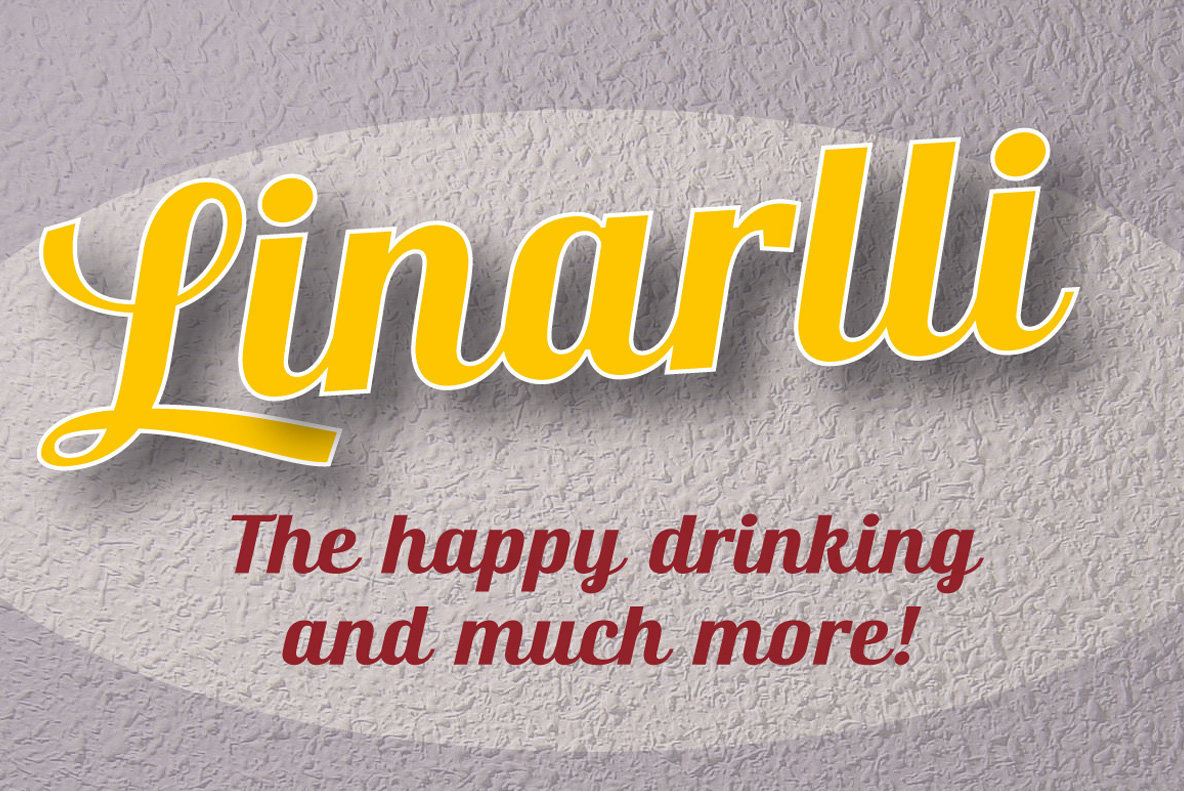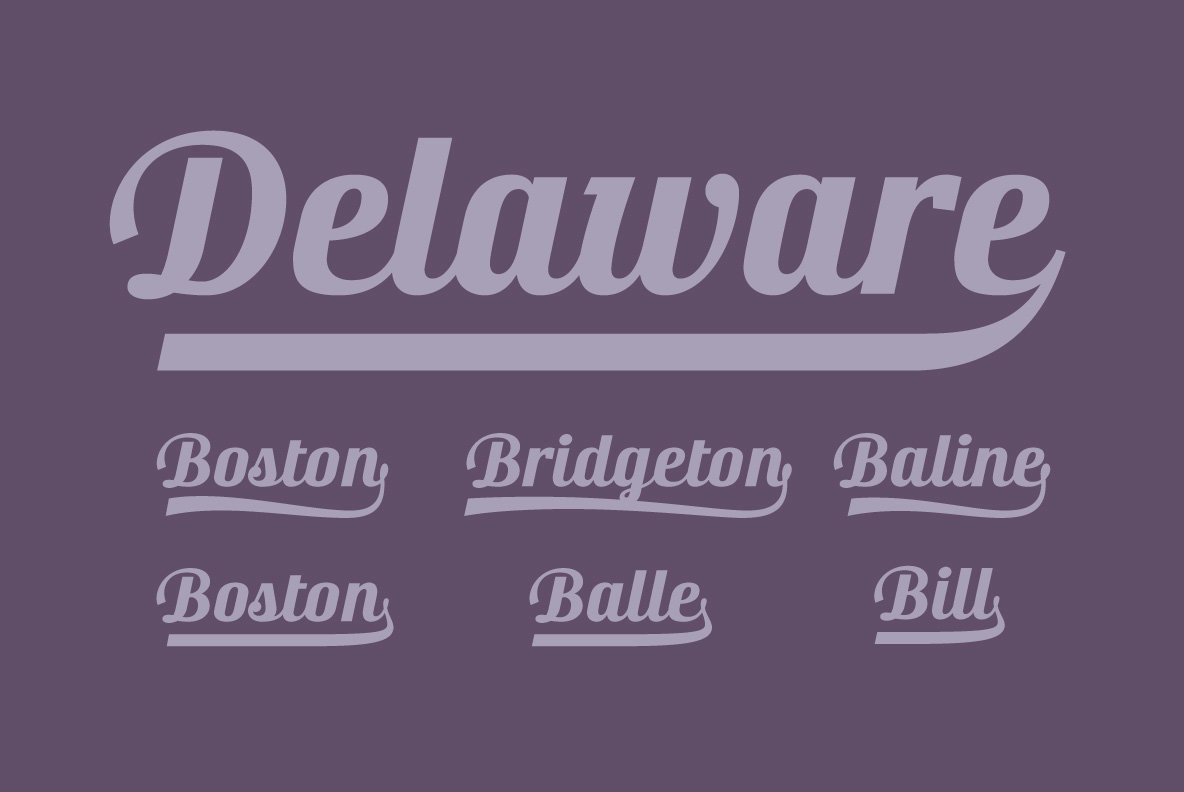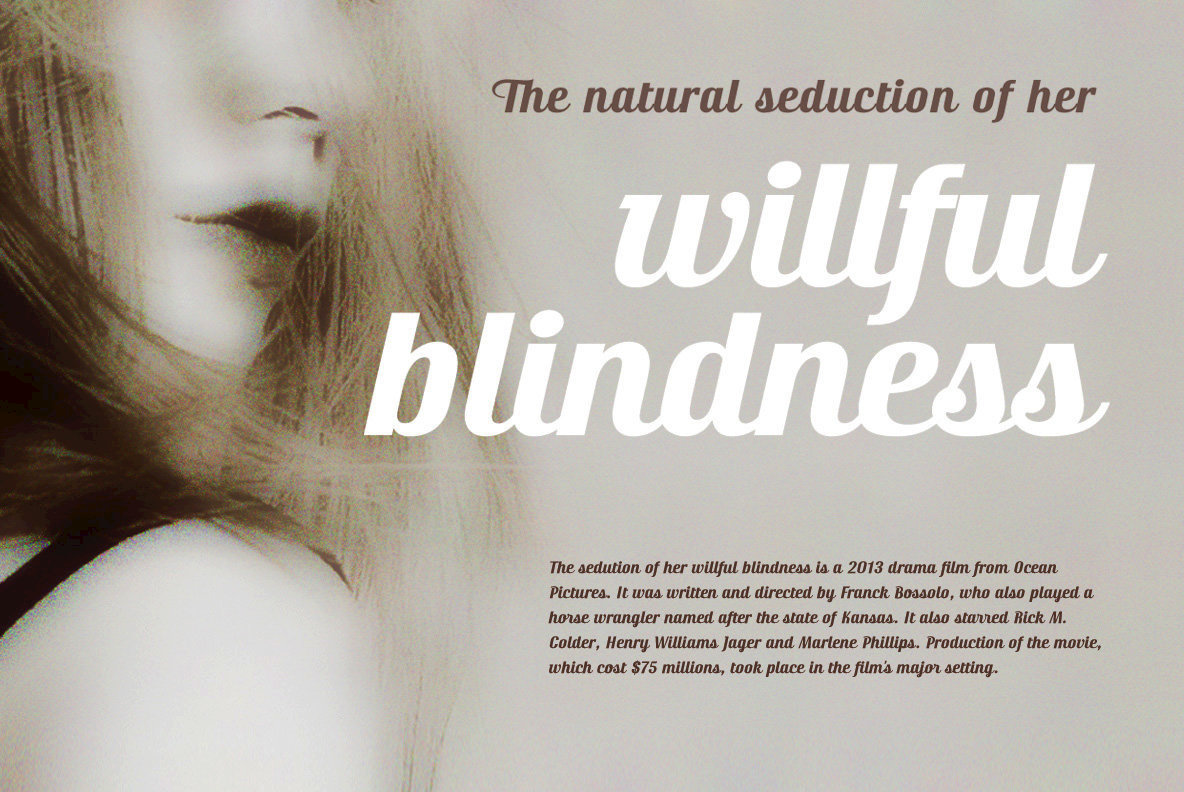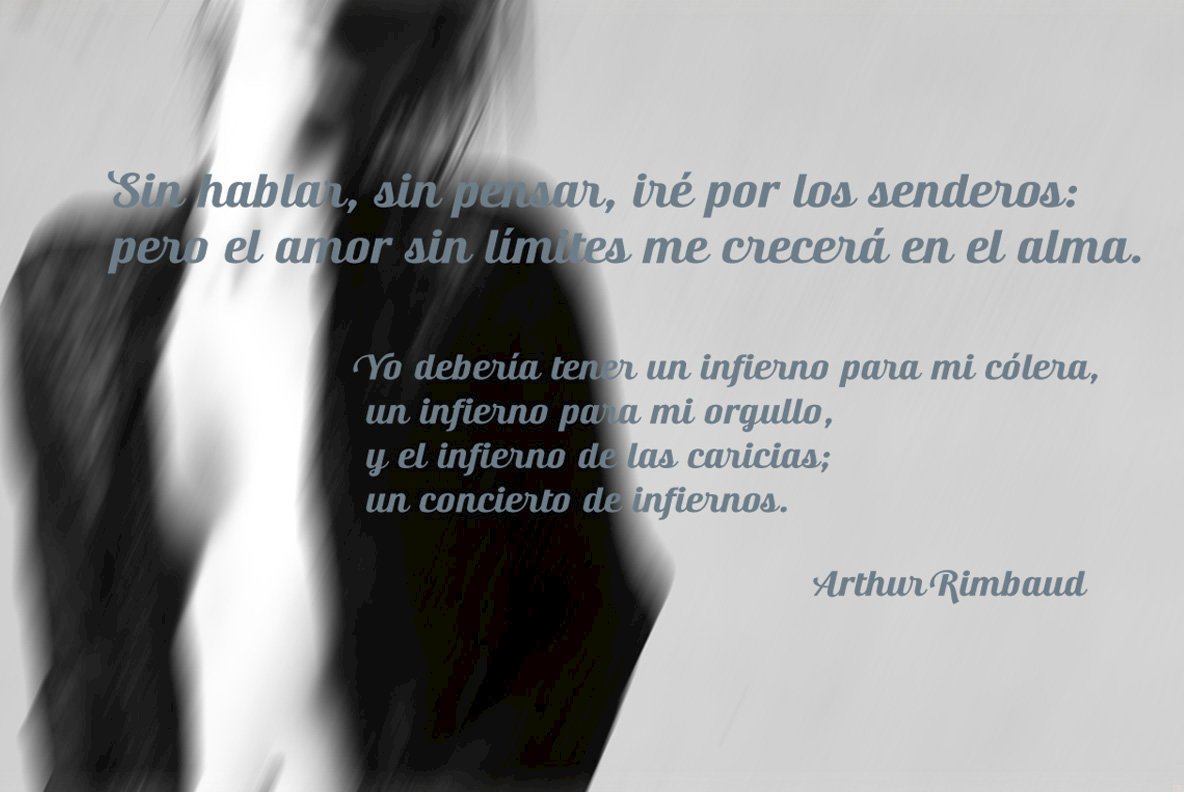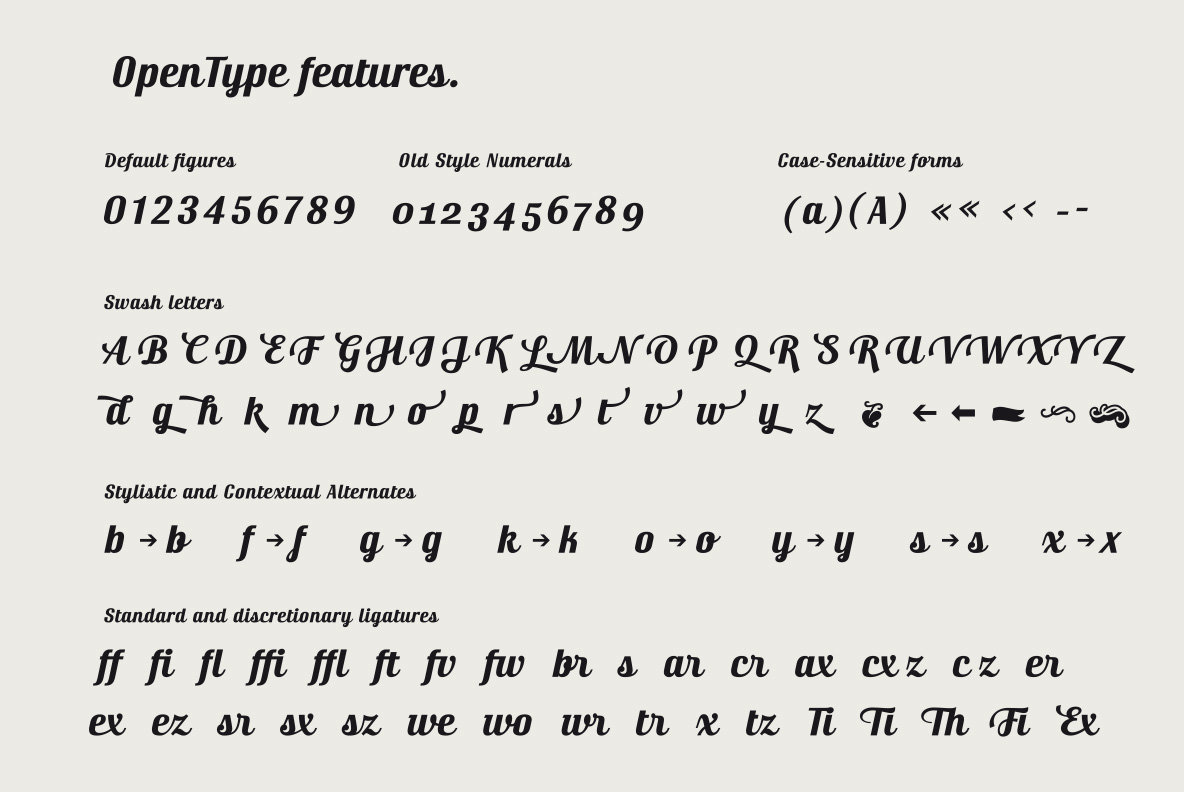
Ritts Cursive
The most notable characteristic of this typeface is that it has a compact and regular shape that is slightly condensed but fluidly connected. Its glyphs emulate the look of handwritten, inked characters. Their exuberant graphic strokes and sharp edges maintain the influences of printed types produced by mechanical processes.
Unlike most of the italic type of today, the capital letters are as high as the ascending lower-case letters.
The brush script style (Originally designed in 1942 by Robert E. Smith for the ATF) inspired many contemporary and beautiful typefaces, such as Wisdom Script, Mission Script, Marketing Script, Motion Picture, Thirsty Script, Lauren Script, Deftone Stylus and many others.
This font has more than 700 glyphs, Central European languages support, including Open Type features, swashes, and contextual stylistic alternates. It also includes old-style figures, discretional and standard ligatures, is case-sensitive and has a set of tails and ornaments.